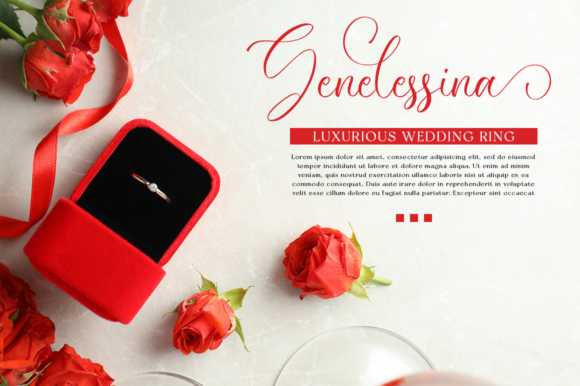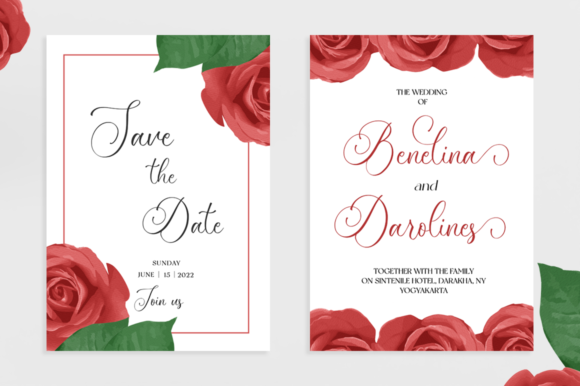
Gandaria Font
db-ku.com - Script & Handwritten -- Gandaria is a lovely and delicate script font that exudes elegance and class. This font is perfect for those who need a beautiful and refreshing look to their designs. Gandaria is PUA encoded which means you can access all of the glyphs and swashes with ease!